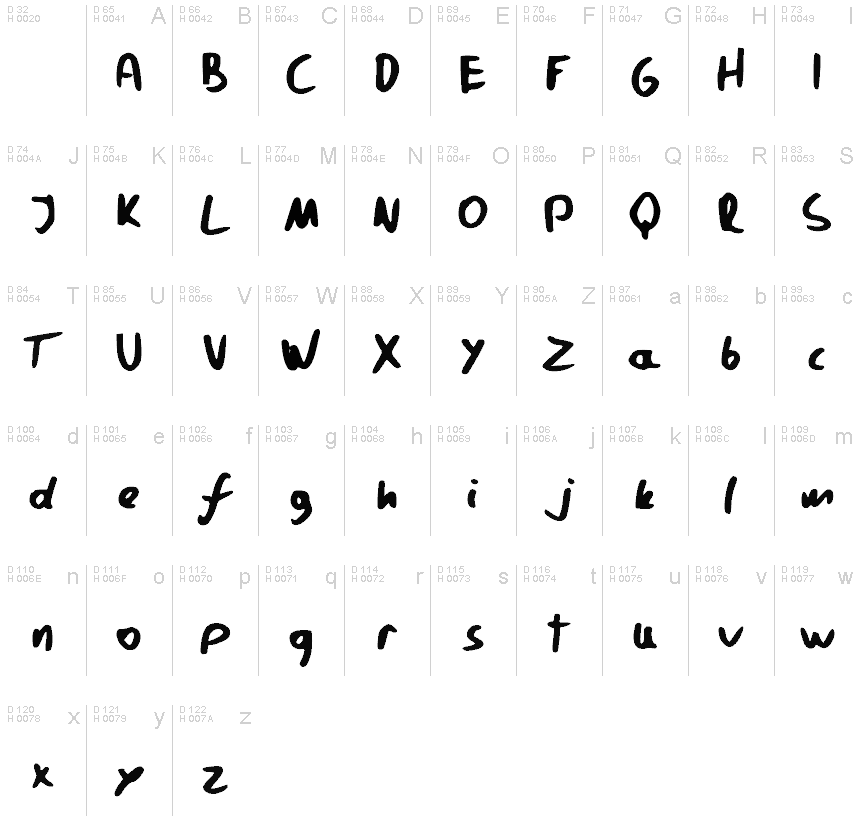
Pavfont
Pavfont is a captivating handwritten font designed by Pawel Klasa. Its fluid and expressive strokes evoke a sense of artistry and personality, making it an ideal choice for a wide range of design applications. The font's distinctive character and organic feel lend themselves beautifully to branding, editorial work, and creative projects that seek to convey a personal, handcrafted aesthetic. Pavfont's versatility and charm make it a compelling option for designers looking to add a touch of authenticity and charm to their work.
Pavfont's unique style and versatility make it a compelling choice for a variety of design projects. Its fluid, expressive strokes lend a personal, handcrafted feel that can elevate branding, editorial work, and other creative endeavors. Designers seeking to convey a sense of authenticity and charm will find Pavfont a compelling and versatile option.